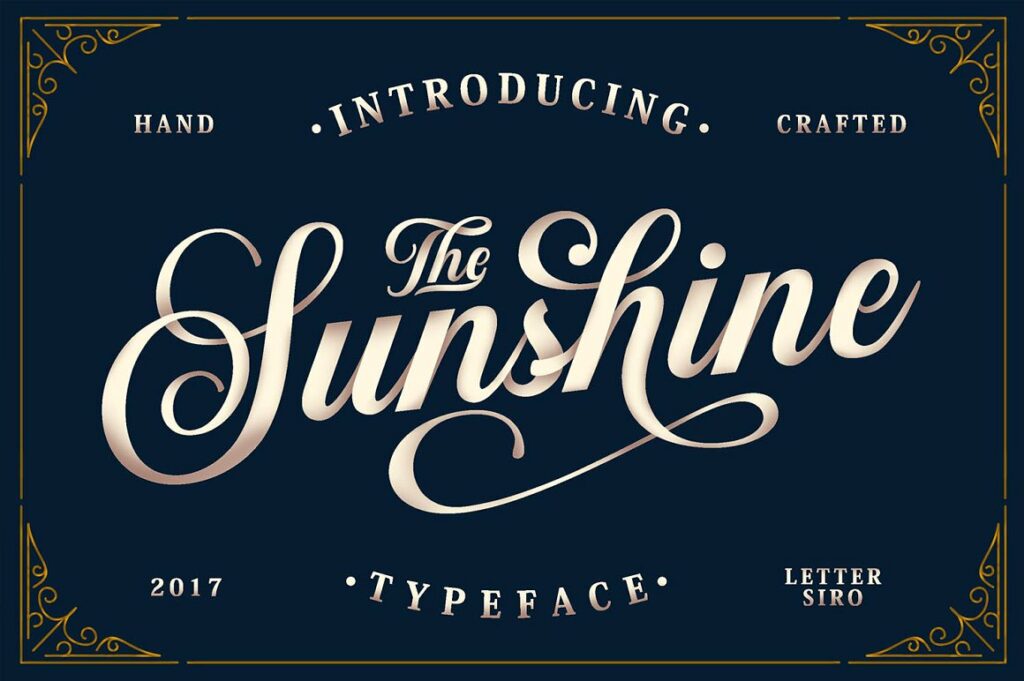
Sunshine Font
The Sunshine is our latest product that need so much effort to create it. We do the best to make this font good for you. This is very suitable for beautiful logo, poster, vintage signage, magazine, photography, vintage lettering, and any other design project.
Sunshine Calligraphy Font